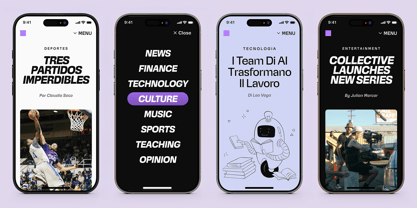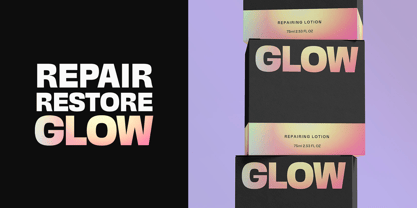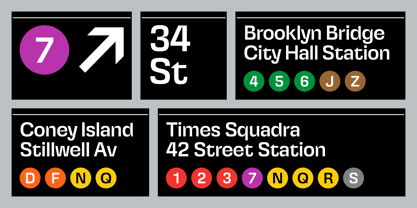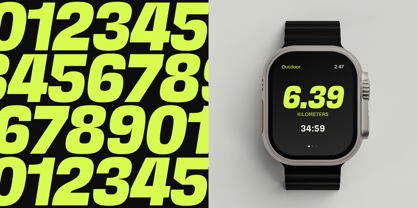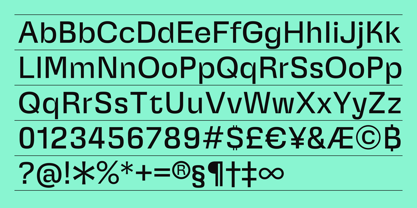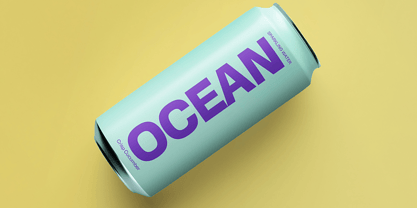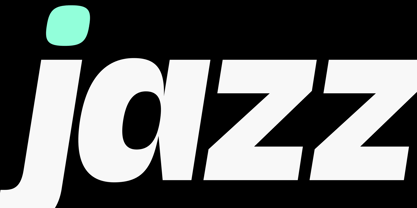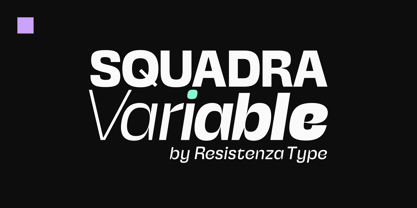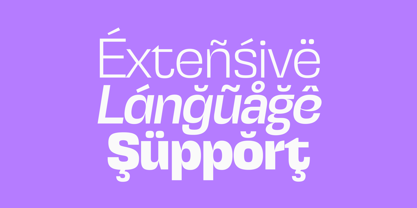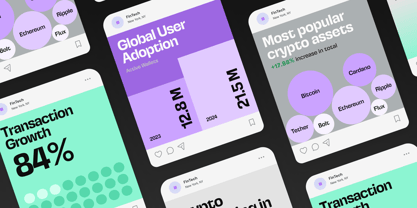
Squadra Variable
by Resistenza
Squadra Variable is a contemporary sans-serif typeface available as a single, flexible variable font. Inspired by the iconic Eurostile by Aldo Novarese and Alessandro Butti, it reinterprets geometric elegance and modernist spirit with a refined versatility tailored to today’s typographic demands.
With continuous weight and slant axes, Squadra Variable lets you seamlessly adjust from Thin to Black and from upright to an expressive italic angle — all within one font file. Its squared letterforms, clean lines, and carefully balanced proportions maintain clarity and sophistication across the entire design space.